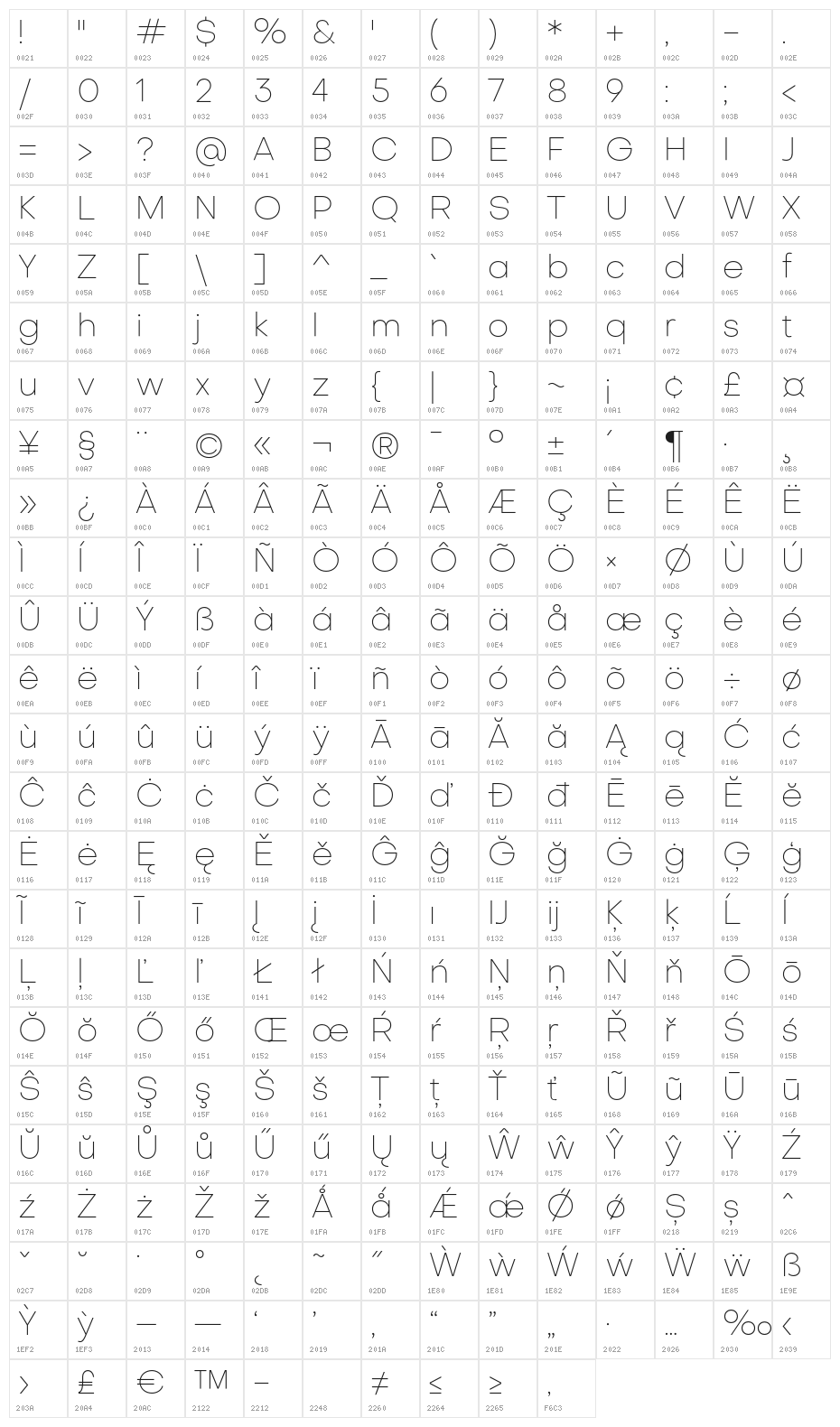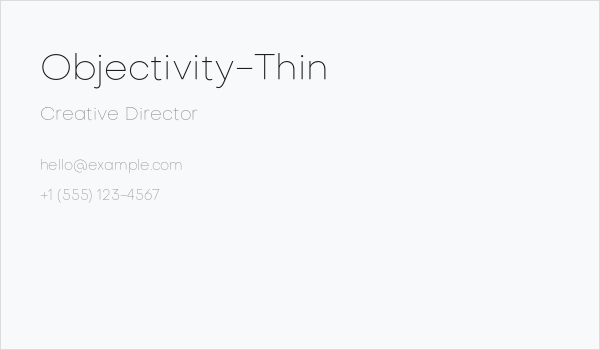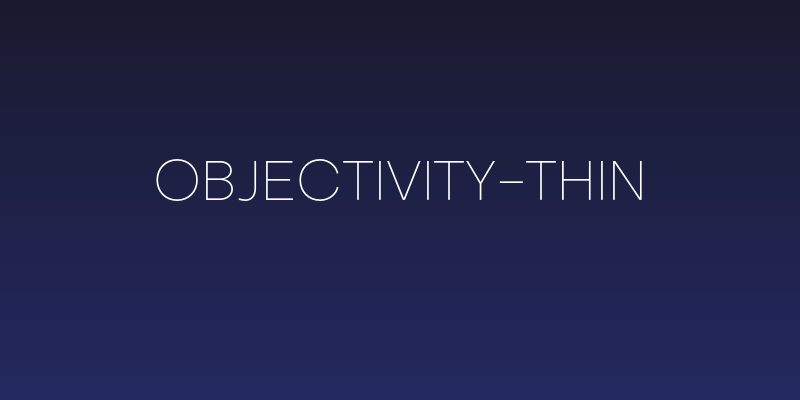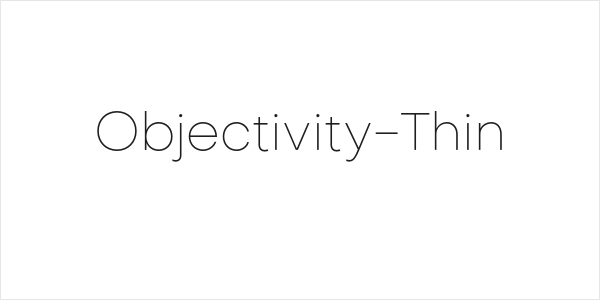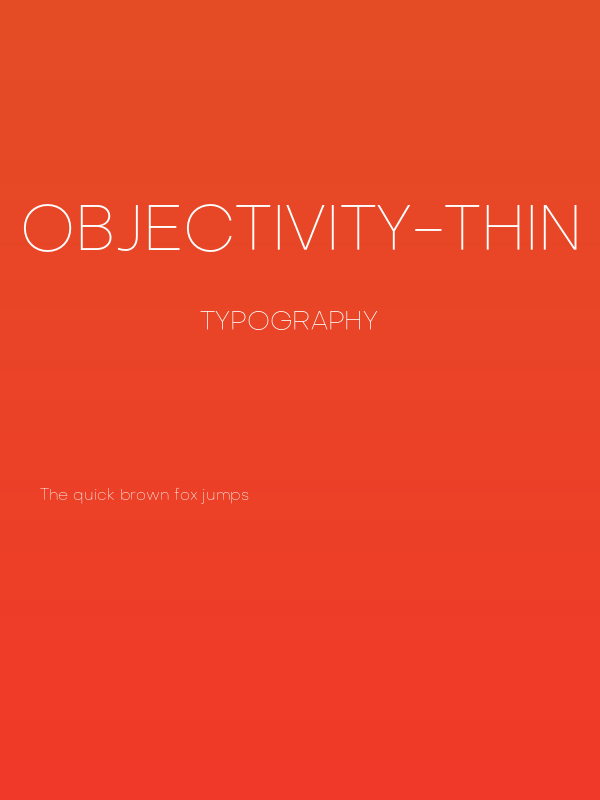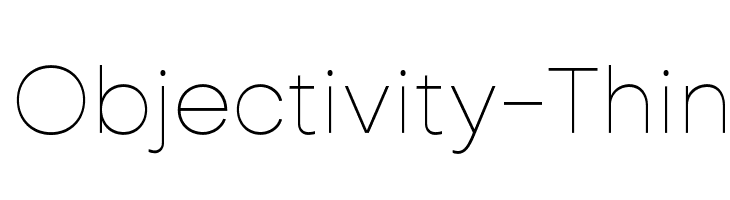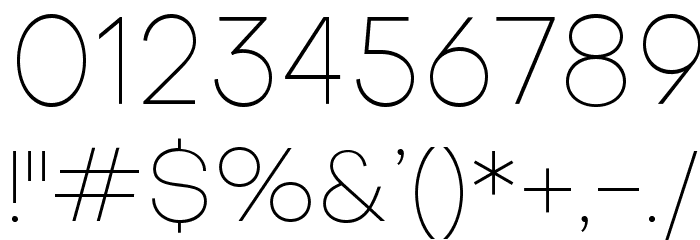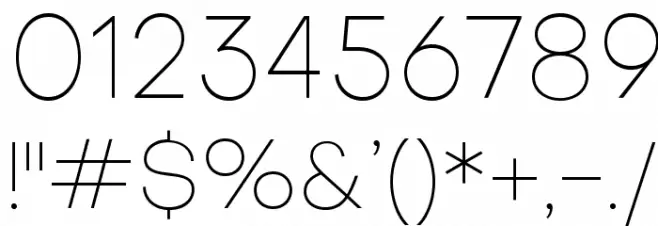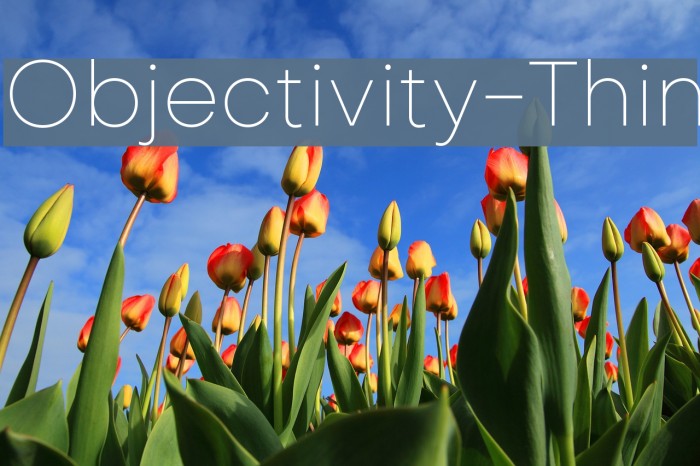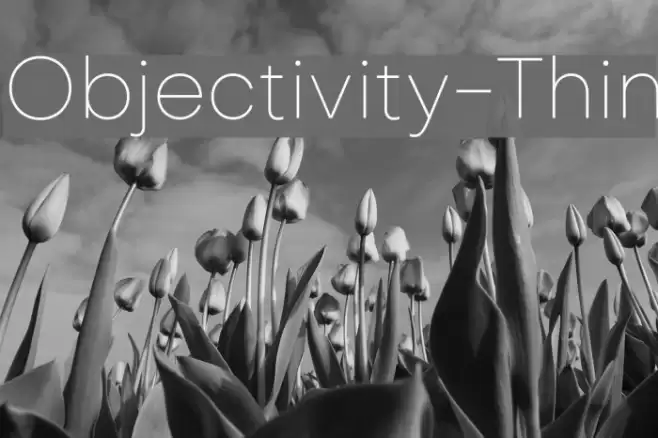
Objectivity-Thin Font
Objectivity-Thin Description
This font features a clean and minimalist design with thin, uniform strokes that create a sense of elegance and modernity. The characters are well-proportioned, with a geometric influence that is evident in the circular shapes of the letters like 'O' and 'C'. The uppercase and lowercase letters maintain a consistent style, contributing to a cohesive appearance. The numerals are clear and easy to read, while the special characters are designed to match the overall aesthetic. This font's simplicity and clarity make it versatile for various design applications.
| Use Case | Headlines, Body text, Logos |
| Proposed Projects | Ideal for modern branding, minimalist posters, clean web design, and elegant stationery. |